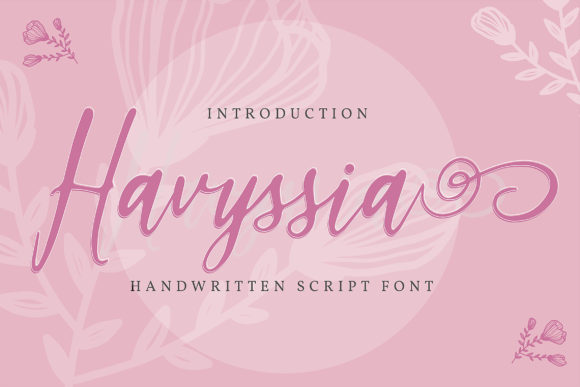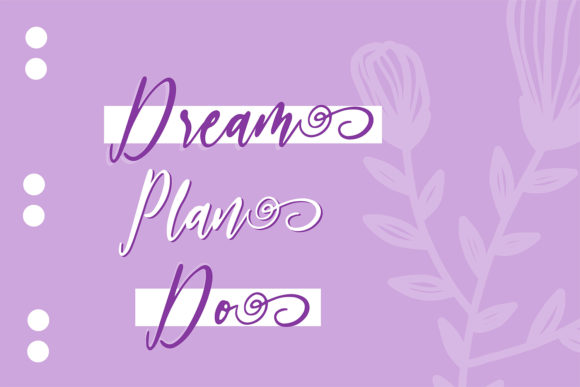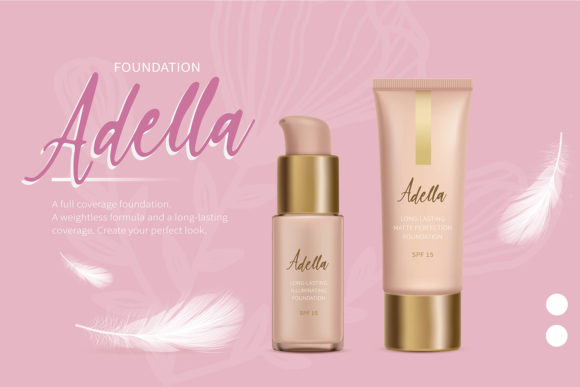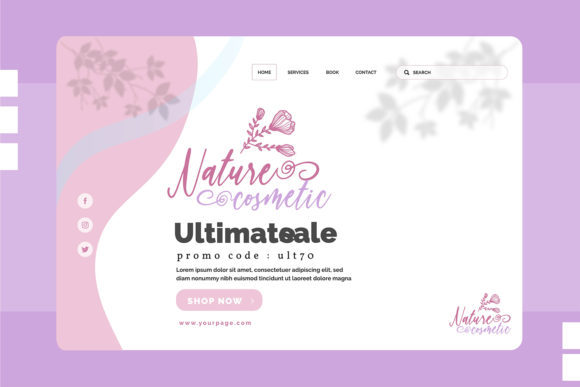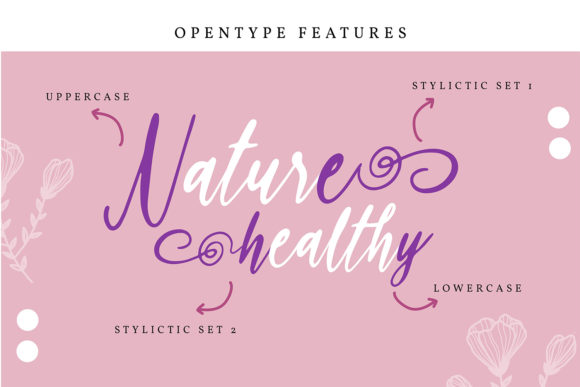
About Havyssia Font
Havyssia is a whimsical script font with a relaxed theme, featuring a lovely style. Fall in love with its incredibly versatile style and use it to create gorgeous wedding invitations, beautiful stationary art, eye-catching social media posts, and much more!